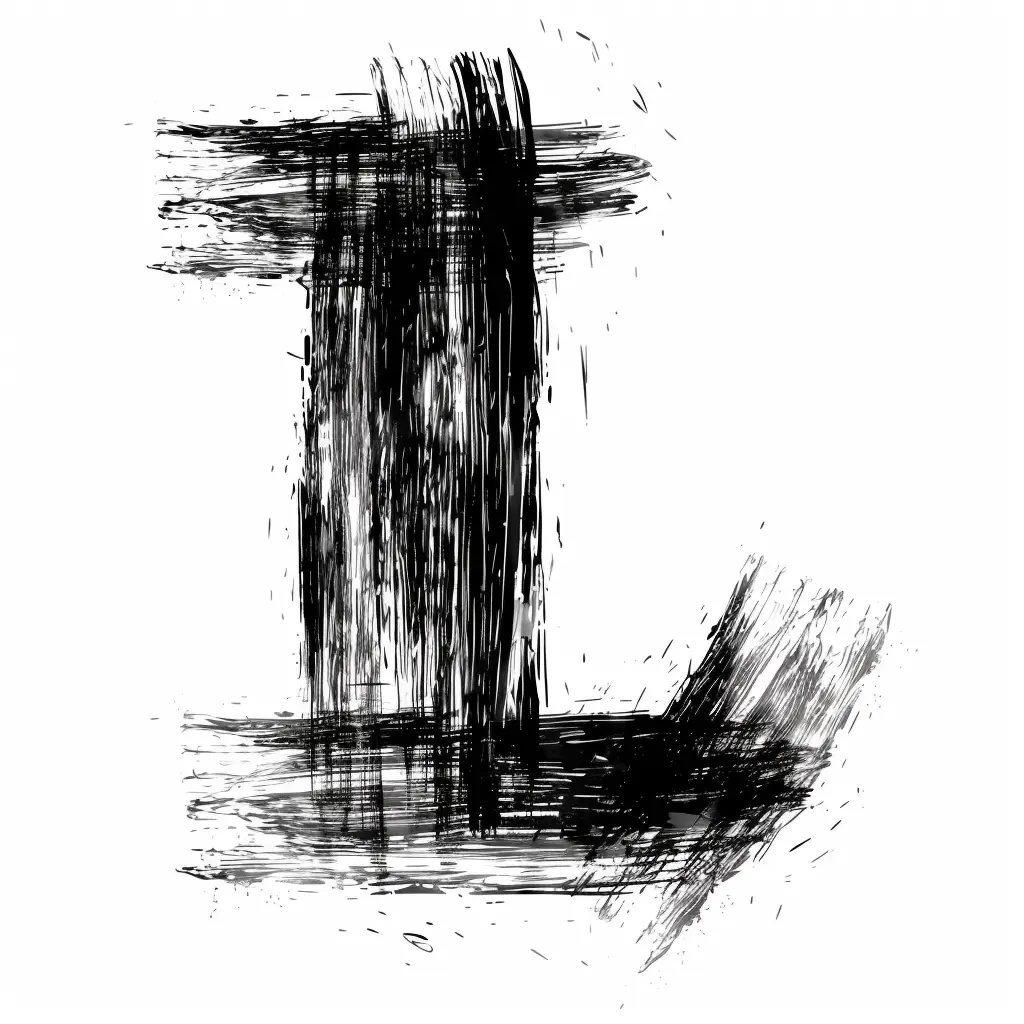
This abstract artwork features a bold, black brushstroke composition on a white background, resembling a stylized letter "L" with rough, textured lines and dynamic splatters. The piece uses high-contrast monochrome tones, with layered, chaotic strokes creating depth and movement, emphasizing a raw, expressive artistic style.